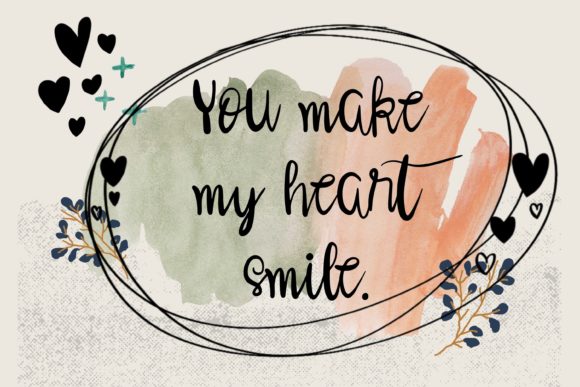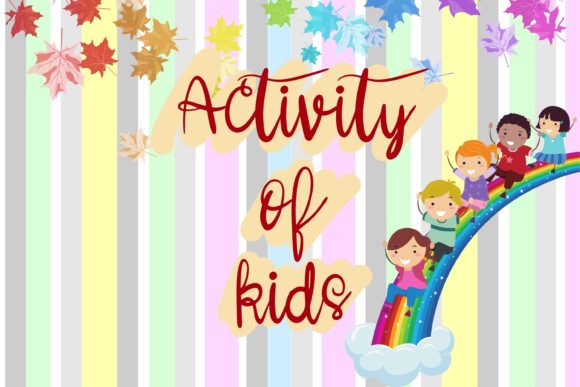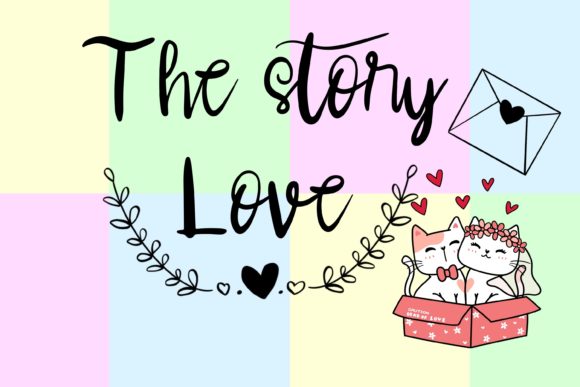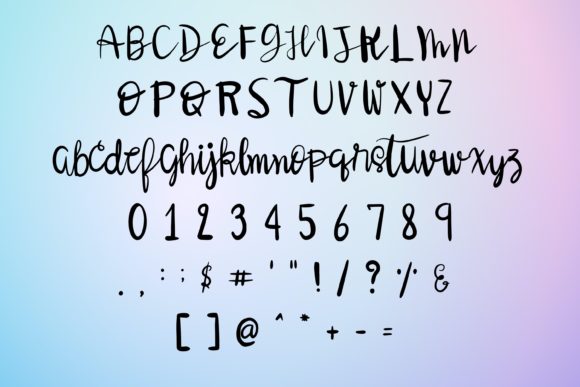
Maple Leafs Font
About Maple Leafs Font
Maple Leafs is a chic, trendy and fun handwritten font. Whether you use it for cartoon related designs, children games or just any creation that requires a lovely touch, this font will be an amazing choice.